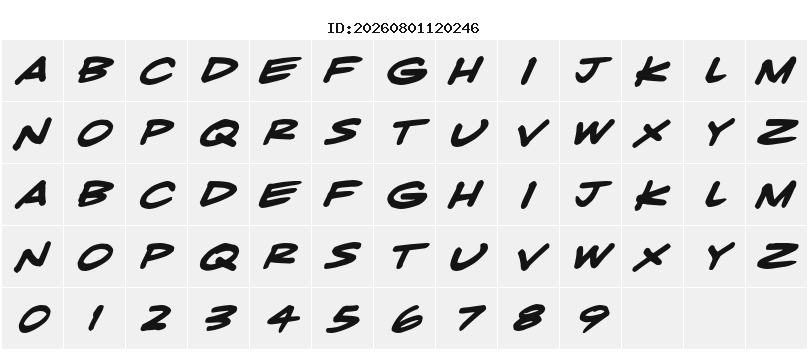
LHF Comic Caps BETA Preview
• Font Name: LHF Comic Caps BETA
• Full Font Name: LHF Comic Caps BETA Italic
About LHF Comic Caps BETA.ttf
LHF Comic Caps BETA.ttf is a modern, elegant sans-serif font designed for ultimate readability and visual harmony. Perfect for branding, headlines, web design, and print materials.